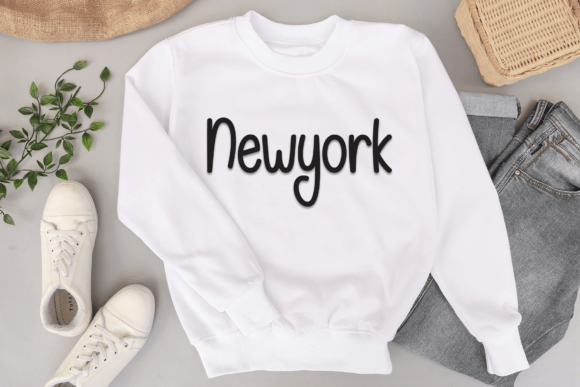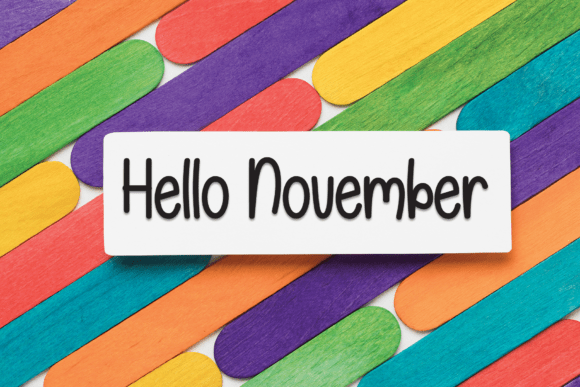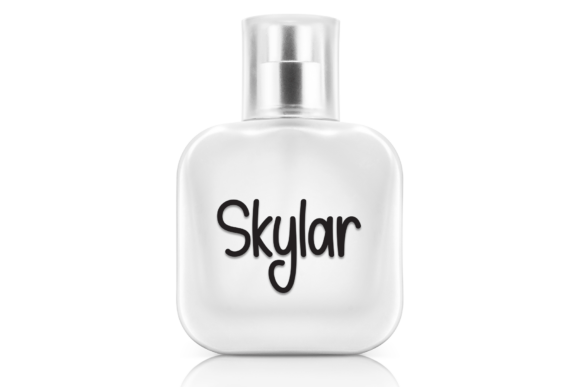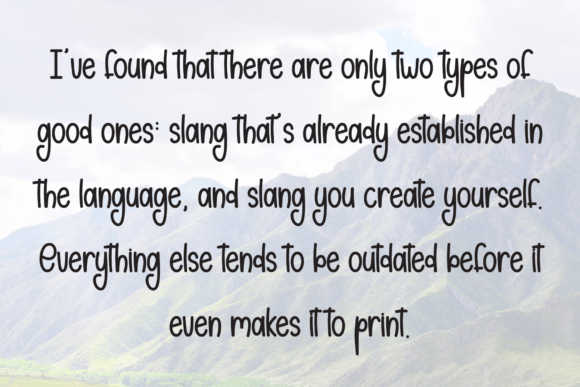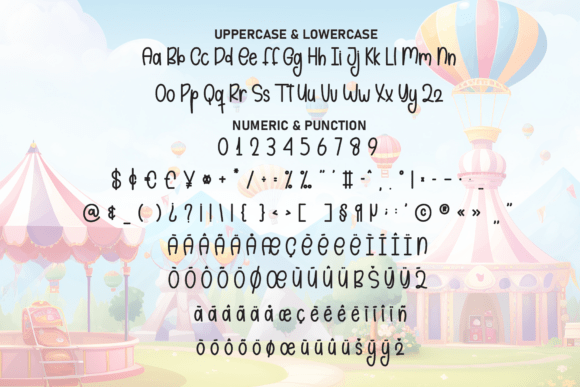
Introducing Happyland Font: Elevate Your Designs with a Touch of Whimsy
Are you tired of using the same old fonts in your designs? Do you want to add a touch of personality and whimsy to your projects? Look no further than Happyland Font, the perfect addition to your creative arsenal. Our font is designed to provide you with an extraordinary experience, allowing you to create stunning visual content that stands out from the crowd.
What is Happyland Font?
Happyland Font is a unique and stylish font that is perfect for a wide range of design projects. From wall displays and wedding invitations to social media post logos and advertisements, our font is sure to make your designs pop. With its tasteful handwriting style, Happyland Font is ideal for crafters, designers, and anyone looking to add a personal touch to their projects.
What Makes Happyland Font Special?
Our font is designed with creativity and versatility in mind. Here are just a few reasons why Happyland Font stands out from the rest:
- Latest Style Letters: Our font features the latest style letters that are perfect for making a statement in your designs.
What Can I Use Happyland Font For?
The possibilities are endless with Happyland Font. Here are just a few ideas to get you started:
- Wall Displays: Create eye-catching wall displays for your business, event, or personal project.
- Wedding Invitations: Add a touch of elegance and whimsy to your wedding invitations with Happyland Font.
- Social Media Post Logos: Elevate your social media presence with custom logos and graphics featuring our font.
- Advertisements: Stand out from the competition with eye-catching advertisements that showcase your brand’s personality.
- Product Packaging: Add a personal touch to your product packaging and make it truly unique.
- Product Designs: Create stunning product designs that showcase your brand’s style and personality.
- Labels: Design custom labels for your products or business that feature Happyland Font.
- Photography: Add a touch of whimsy to your photography with custom watermarks or overlays featuring our font.
- Invitations: Create custom invitations for any occasion, from birthdays to graduations.
- Stationery: Elevate your stationery with custom designs featuring Happyland Font.
Happyland Font is the perfect addition to any designer’s or crafter’s toolkit. With its unique and stylish handwriting style, compatibility with popular design software, and ease of use, our font is sure to elevate your designs to the next level. Whether you’re working on a personal project or a professional one, Happyland Font is the perfect choice. So why wait? Get Happyland Font today and start creating extraordinary designs that showcase your personality and style.